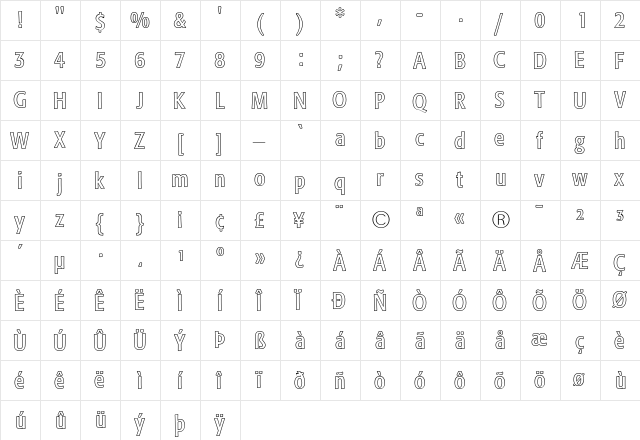
FormataOutline-Condensed Roman
Design Context for FormataOutline-Condensed Typeface
FormataOutline-Condensed is built around its visual character rather than neutral utility — its distinctive forms are designed to make an impression at display sizes.
Font Pairing: Pair with a clean neutral sans-serif for body copy to let FormataOutline-Condensed's character lead without overwhelming the composition.
Pro Tip: Use FormataOutline-Condensed exclusively at display sizes — it was designed to be seen, not read at length. Let a neutral companion handle body copy.